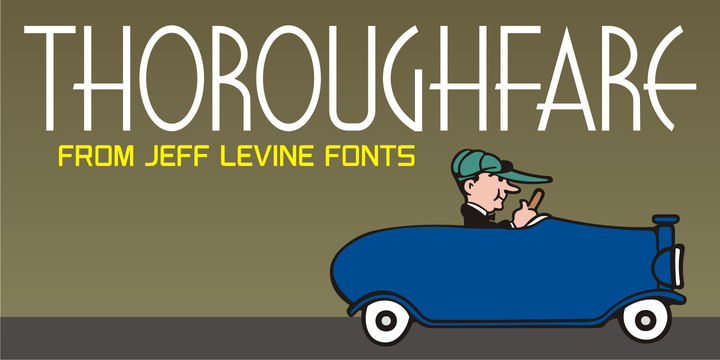
Thoroughfare JNL
by Jeff Levine
The Art Deco style of the 1930s offers many variants of the popular “streamline” look in hand lettering found on old sheet music titles.
Thoroughfare JNL is one such example of a monoline design with the interesting curves and angles that was considered so modern and up to the minute for its time.